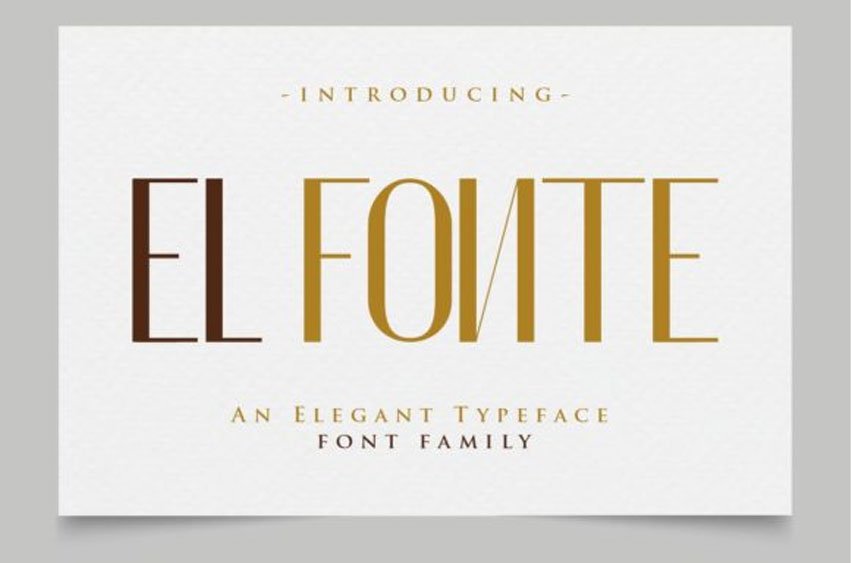
El Fonte Font
El Fonte Font is an elegant and distinct sans serif font.
Fall in love with its incredibly versatile style and use it to create spectacular designs!